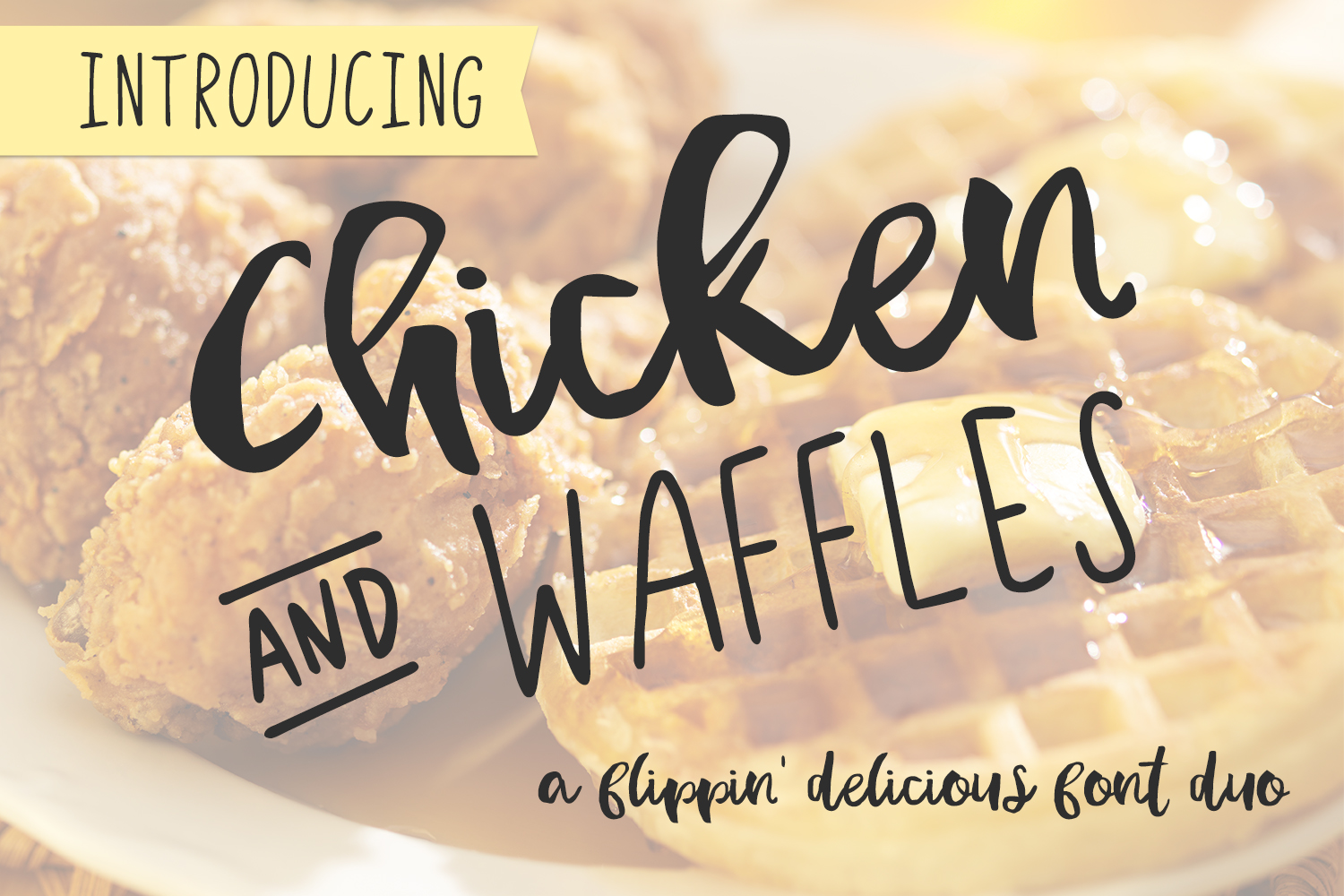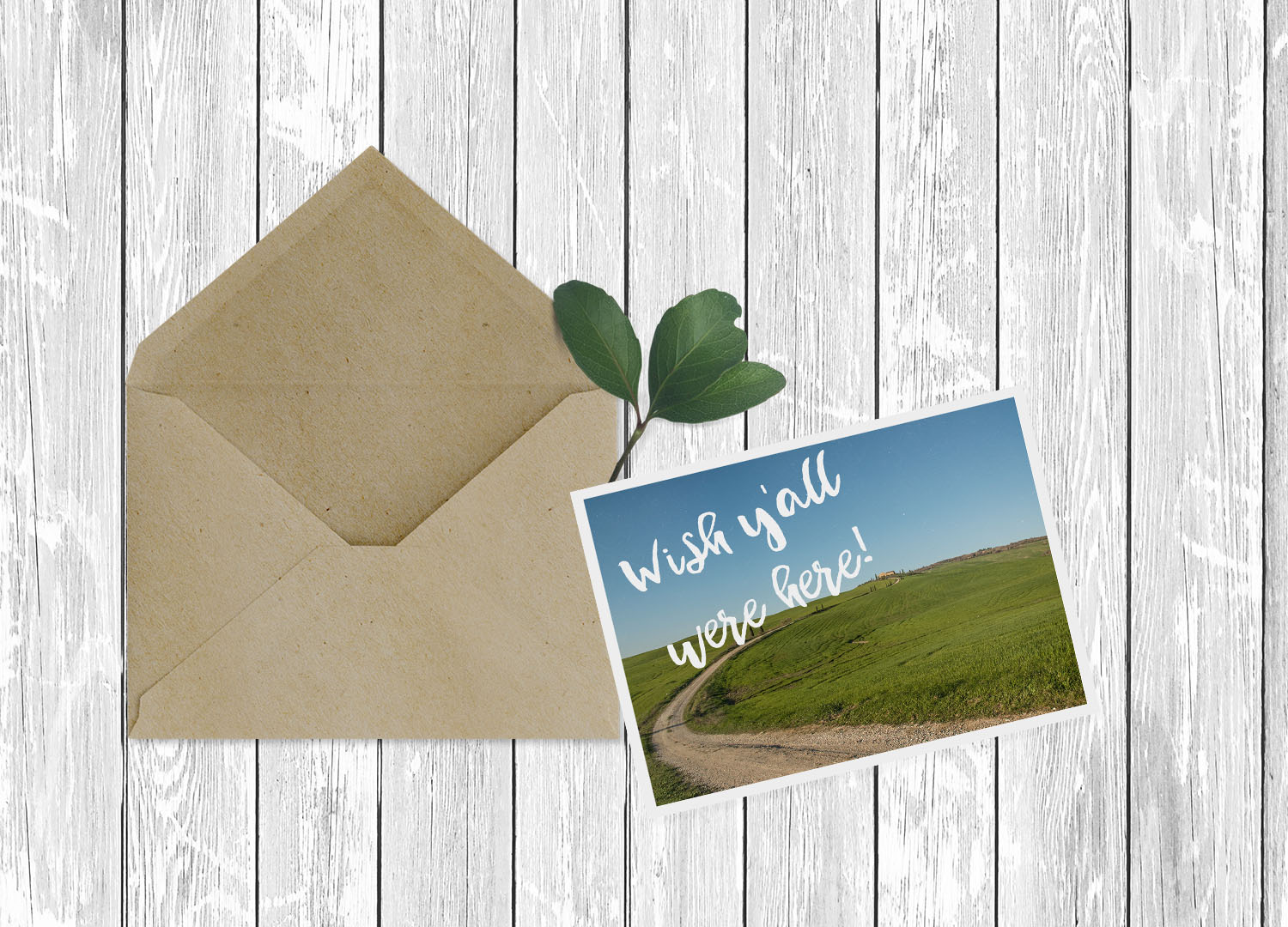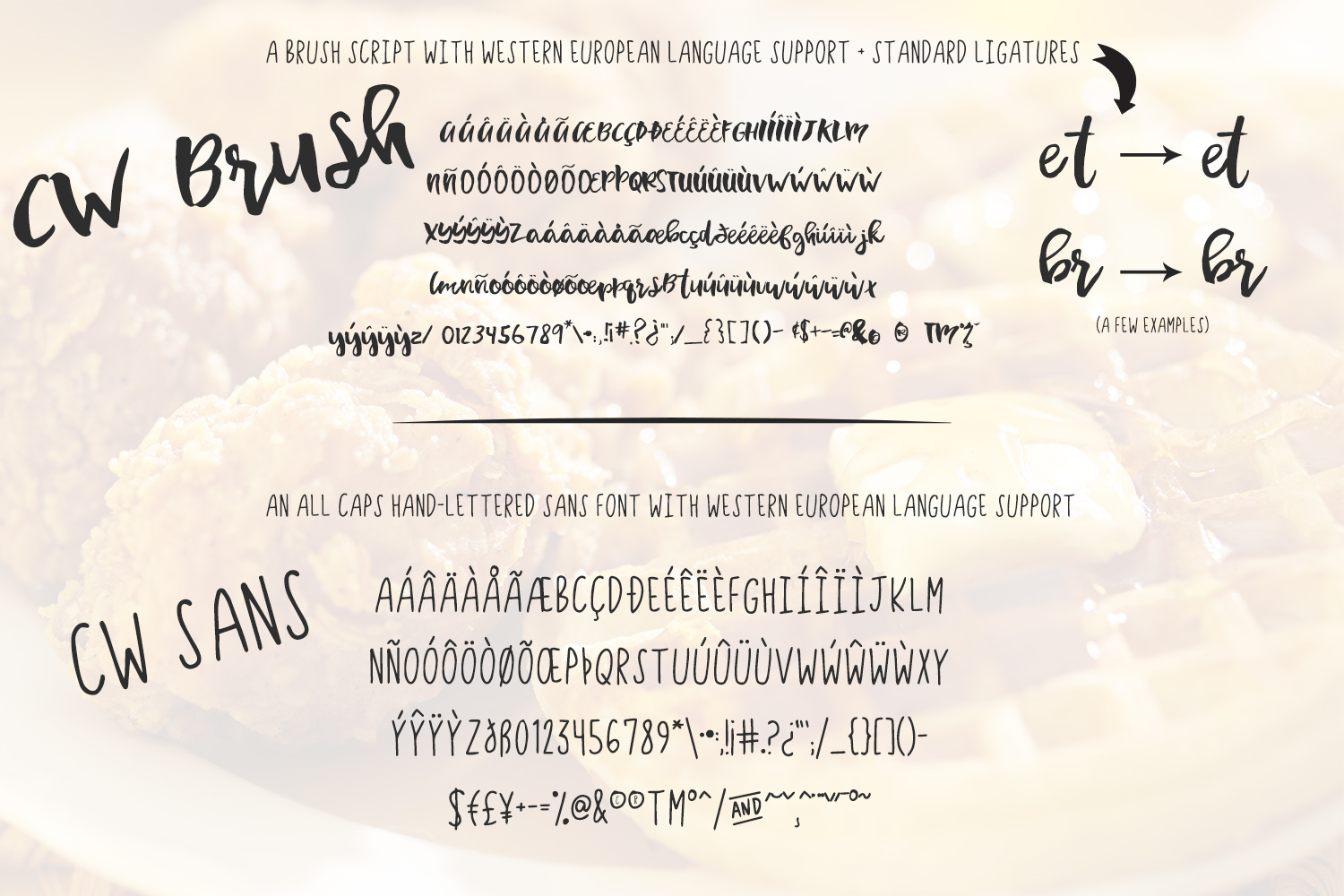
About Chicken and Waffles Font
Introducing Chicken and Waffles A Flipping Delicious Brush Script + Sans Duo Inspired by the Southern classic
A seemingly unusual pair at first glance, the textured brush script works surprisingly well with the sweet, clean but still whimsical sans.
Chicken and Waffles features European language support. The brush script also features some standard ligatures for awesome combos.